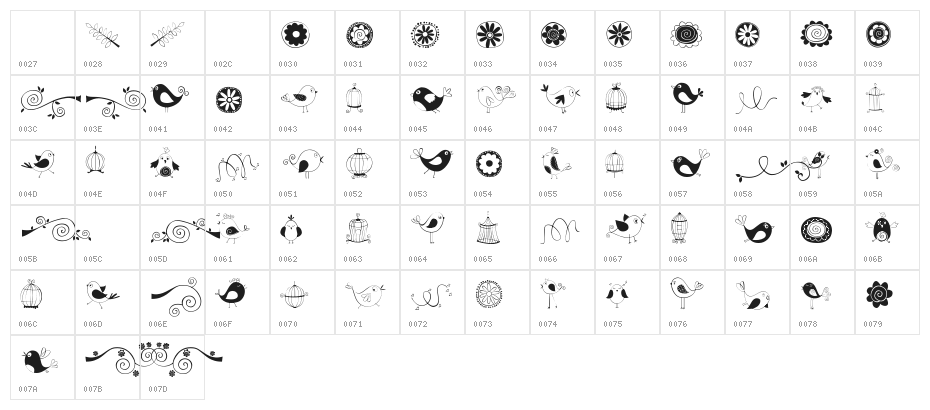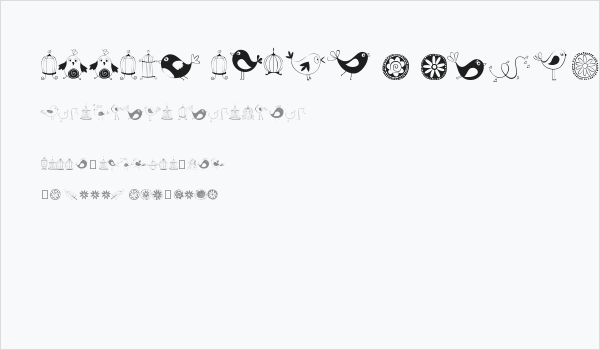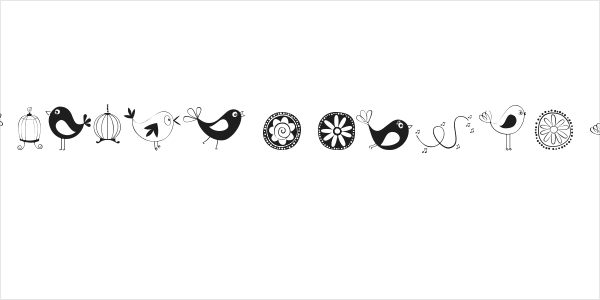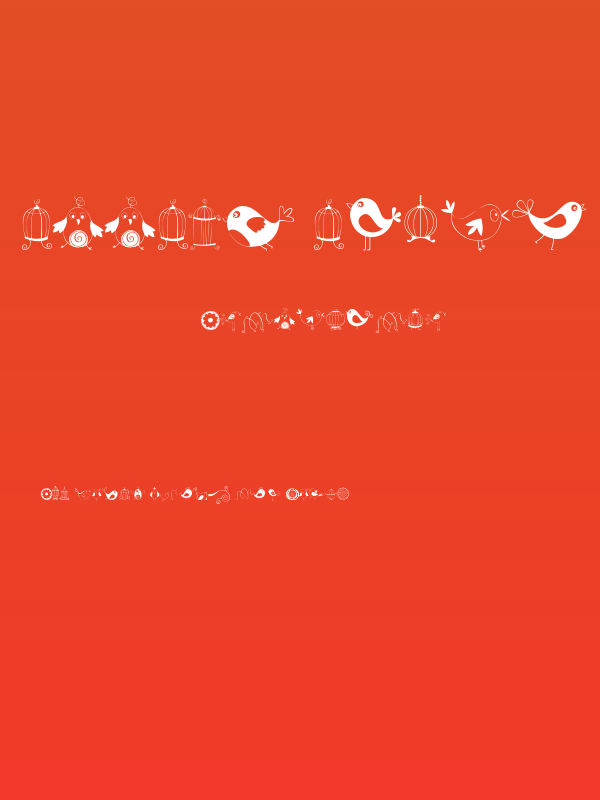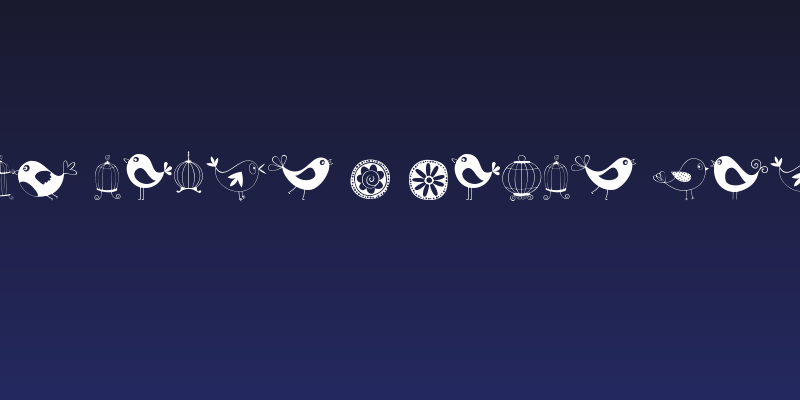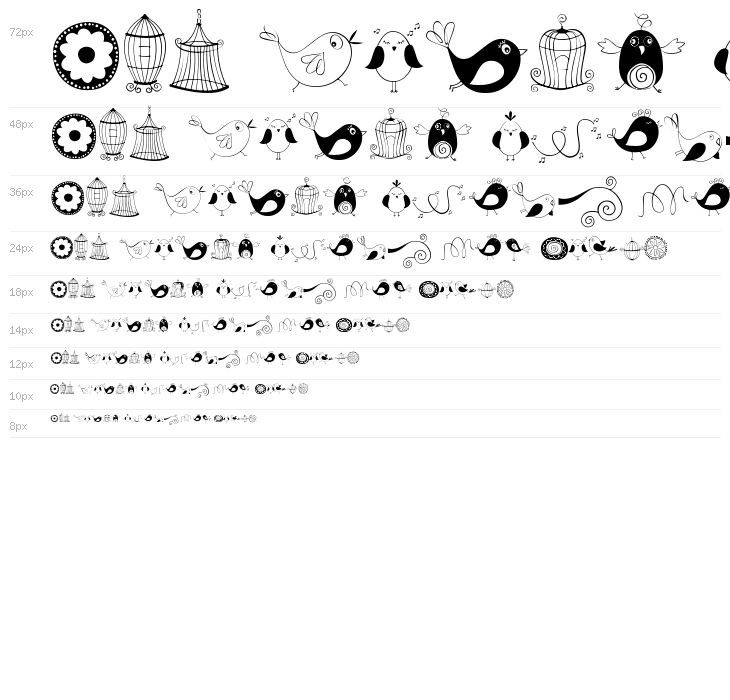
DOODLE DINGS 1 Birds Cages Font
DOODLE DINGS 1 Birds Cages Description
This is a decorative font featuring whimsical bird and cage illustrations. Each character is a unique doodle, combining playful elements like flowers, swirls, and musical notes. The style is lighthearted and artistic, with a hand-drawn feel that adds charm and personality. The characters are not traditional letters but rather a collection of delightful images that can be used to create borders, patterns, or decorative elements in design projects. The font's intricate details and creative motifs make it ideal for adding a touch of whimsy to any project.
| Use Case | Decorative elements, Borders, Patterns |
| Proposed Projects | Ideal for greeting cards, children's book illustrations, scrapbooking, and decorative borders. |